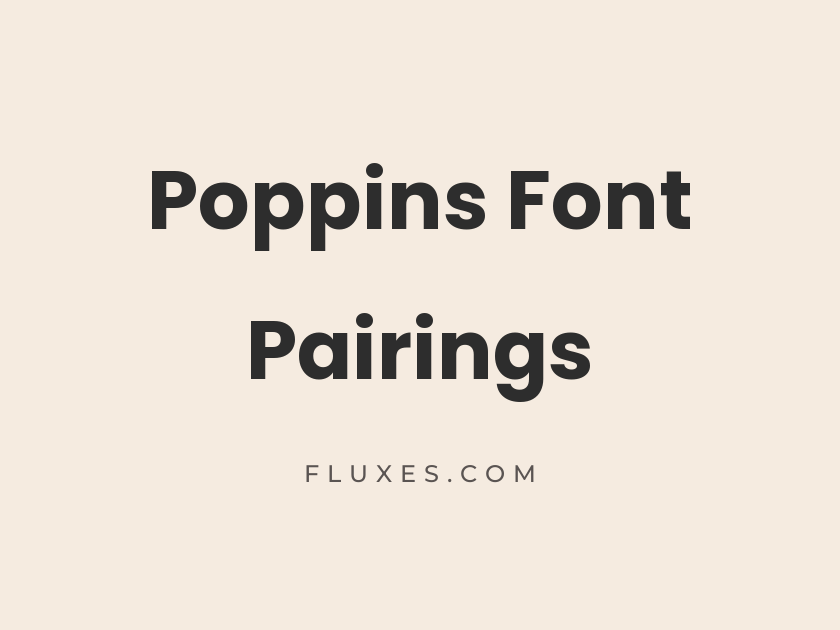
11 Best Font Pairings for Poppins
Poppins is a geometric sans built on near-perfect circles, with a friendly, contemporary feel that works equally well in interfaces, marketing pages, and editorial layouts. Because its letterforms are so clean and consistent, it pairs well both with fonts that share its geometric logic and with fonts that offer contrast in texture, era, or mood. The combinations below cover a range of projects, from apps and startups to publications and print pieces, and reflect some of the most reliable Google Fonts pairings for Poppins.
Poppins + Karla
Karla shares a similar structural simplicity, so the two fonts read as close relatives rather than strangers.
Both typefaces are geometric-leaning grotesques with even stroke weights and a low-key personality, which makes this pairing feel unified rather than contrasted. It suits SaaS products, portfolios, and clean corporate sites where consistency matters more than drama.
Poppins + Merriweather
Merriweather's sturdy serifs and generous curves make long paragraphs comfortable to read on screen.
Here the appeal is contrast: a rounded, geometric display font against a serif built specifically for legibility in body text. This pairing works well for blogs, editorial sites, and any project that needs a friendly headline over substantial reading passages.
Poppins + Lora
Lora brings a slightly calligraphic warmth that softens the geometric precision of the headline above it.
Lora’s moderate contrast and brushed curves keep the pairing from feeling cold, even though Poppins itself is quite mechanical in construction. It’s a good match for lifestyle brands, wellness sites, and personal blogs aiming for approachable sophistication.
Playfair Display + Poppins
Poppins steps back into a supporting role here, offering clean, understated text beneath a more expressive headline.
Playfair Display’s high-contrast strokes and dramatic serifs give the headline real presence, while Poppins keeps the supporting copy calm and easy to scan. This works nicely for fashion, beauty, and boutique retail sites that want a touch of glamour without sacrificing usability.
Poppins + Inter
Inter was designed specifically for screens, so it complements Poppins without competing for attention.
Both fonts share a neutral, functional character, but Inter’s slightly more restrained proportions let Poppins carry the visual weight in headlines. This is a dependable choice for dashboards, apps, and product documentation.
Abril Fatface + Poppins
Poppins settles into a quiet, legible role, letting the display font above do the heavy lifting.
Abril Fatface’s extreme weight contrast and generous curves create real drama, and Poppins’ evenness keeps the page from feeling overloaded. Pair these for magazine covers, event posters, or bold landing pages.
Poppins + PT Serif
PT Serif's traditional proportions ground the modern geometry of the headline in something familiar.
This pairing balances a contemporary geometric sans with a serif rooted in classic book typography, giving the layout both a modern edge and a sense of reliability. It suits news sites, reports, and long-form content that still wants a current visual identity.
Oswald + Poppins
Poppins offers open, rounded relief beneath the tighter, more vertical rhythm of the headline font.
Oswald’s condensed proportions create tension against Poppins’ circular openness, a contrast that reads as confident rather than mismatched. This combination fits sports sites, bold editorial headers, and posters that need impact in tight spaces.
Poppins + Nunito Sans
Nunito Sans carries the same rounded warmth, so the whole page feels cohesive and welcoming.
When the goal is harmony rather than contrast, these two rounded sans-serifs sit comfortably together, sharing similar x-heights and soft terminals. It works well for children’s brands, community platforms, and friendly consumer apps.
Cormorant Garamond + Poppins
Poppins provides a firm, legible base that keeps the delicate display type from feeling fragile.
Cormorant Garamond’s thin, elegant strokes benefit from a sturdier, more geometric body font underneath, since Poppins won’t compete visually but will hold the page together. This pairing suits invitations, boutique branding, and editorial spreads with a refined tone.
Bebas Neue + Poppins
Poppins keeps the reading experience relaxed after the tall, condensed impact of the headline above.
Bebas Neue is all caps and high impact, so following it with Poppins’ rounded, lowercase-friendly letterforms gives readers a break in texture and pace. This is a strong choice for posters, promotional banners, and bold hero sections.
Tips for pairing Poppins
Decide first whether you want harmony or contrast. Poppins pairs smoothly with other geometric or rounded sans-serifs, and it pairs strikingly with serifs that have real personality.
Keep body text weights light or regular; Poppins’ rounded forms can look heavy at bold weights in long paragraphs.
When using Poppins as body copy under a display serif, give it slightly looser line spacing to match the more open rhythm of serif headlines above it.